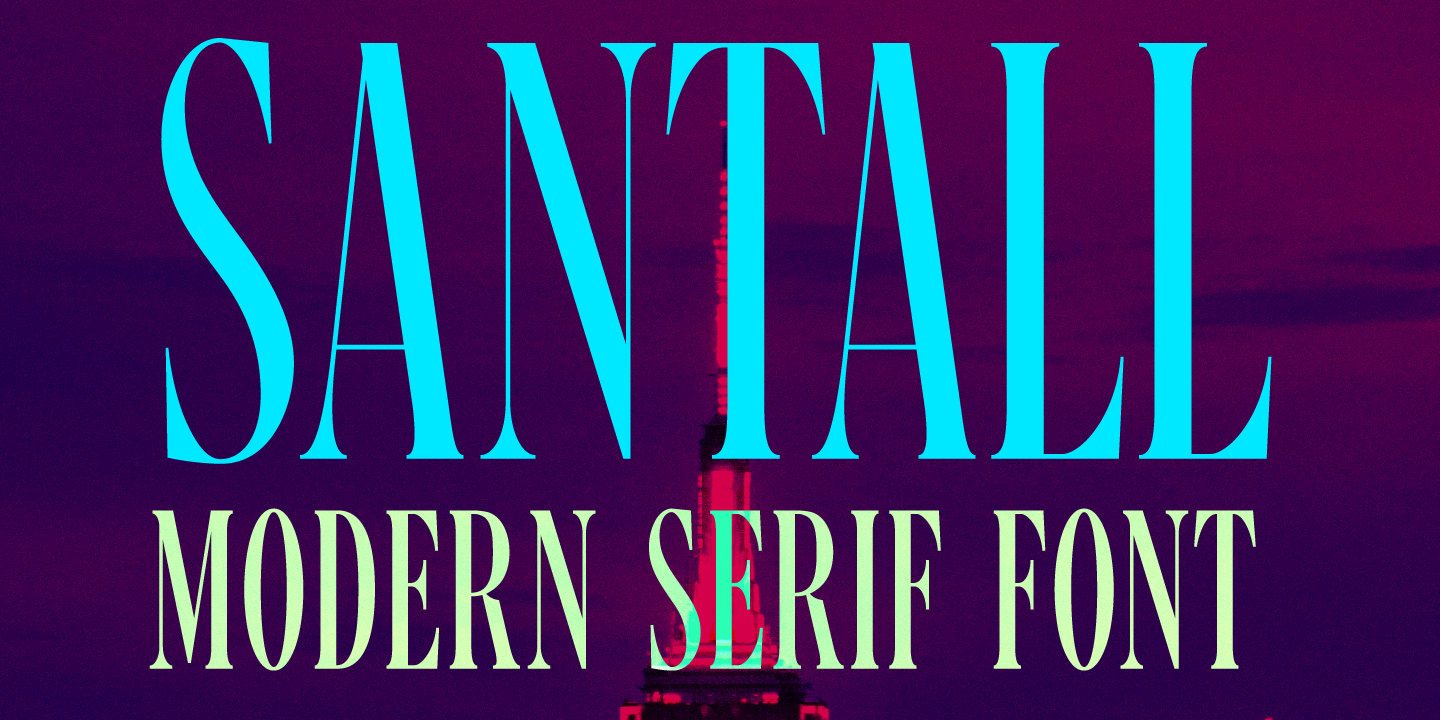
Santall Font is excellent for contemporary corporate branding, modern technology logos, professional business presentations, sleek website designs, clean product packaging, innovative startup identities, sophisticated marketing materials, streamlined user interfaces, and progressive digital platforms.
What makes Santall Font so exciting is its perfect balance of modern professionalism and approachable accessibility that creates exceptional versatility for contemporary business communication. This polished typeface features clean letterforms with geometric precision and optimized proportions that communicate reliability while maintaining a fresh, contemporary appeal. The font's distinctive character incorporates subtle design refinements and systematic consistency that speaks to audiences who value clear communication and professional excellence in their business interactions.
Santall Font offers a comprehensive family collection including Thin, Light, Regular, Medium, Bold, and Black weights, each available in Roman and Italic styles. Advanced OpenType features include professional ligatures, stylistic alternates, and extensive character support designed for international business applications and multilingual corporate communications requiring maximum clarity.
Whether you're developing professional brand systems, creating business documentation, or designing corporate marketing campaigns, Santall Font Free Download provides the reliability and contemporary appeal that modern enterprises require. Its versatile nature makes it suitable for both detailed business texts and impactful display applications while maintaining consistent professional quality across all corporate platforms. This exceptional typeface combines modern design sensibilities with practical functionality, ensuring your message communicates competence and trustworthiness that resonates with professional audiences who appreciate clear communication and value design that represents contemporary business excellence and forward-thinking organizational values.